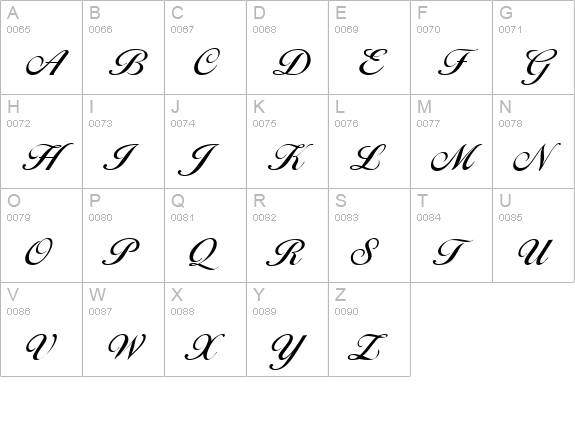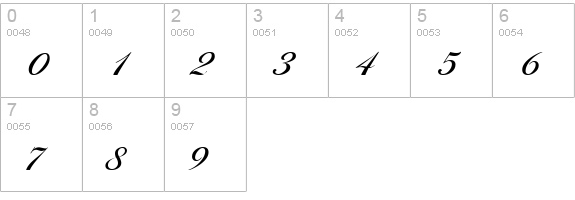
Larissa Regular Font Details
Larissa Regular is the standard, neutral variant in the Larissa typeface family \xE2\x80\x94 well suited to general body text, paragraphs, and standard typographic work.
Larissa Regular font is a stunning typeface that effortlessly combines classic elegance with a modern twist. Designed with utmost care and precision, this font is perfect for adding a touch of sophistication to any design project. Featuring clean lines and perfectly balanced letterforms, Larissa Regular exudes a timeless appeal that is sure to captivate anyone who lays eyes on it. Its versatility makes it suitable for a wide range of design applications, from logos and branding to editorial designs and website headers. What sets Larissa Regular apart is not only its exquisite design but also its accessibility. This font is freely available to download at FontsMarket.com, allowing designers and enthusiasts alike to effortlessly incorporate it into their projects without any cost. With just a few clicks, you can unlock the boundless potential of Larissa Regular and bring your creative visions to life. Whether you're creating a wedding invitation, designing a magazine spread, or crafting a professional logo, Larissa Regular is the perfect companion. Its graceful curves and harmonious proportions will elevate your designs to new heights, leaving a lasting impression on your audience. With Larissa Regular, you no longer have to compromise between style and functionality. This font delivers both in abundance, making it a must-have addition to any designer's toolkit. So why wait? Discover the beauty of Larissa Regular today and unleash your creativity like never before. Download it for free at FontsMarket.com and let the magic begin.